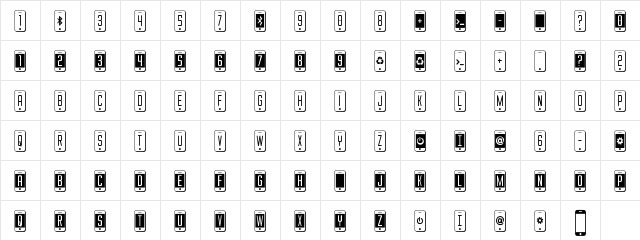
iDroid S Outline Font Preview
iDroid S Outline Outline
iDroid S Outline Font Details
Design Context for iDroid S Outline Typeface
iDroid S Outline brings ornamental detail and strong personality to headlines and identities, where visual impact matters more than quiet functionality.
Font Pairing: Pair with a clean neutral sans-serif for body copy to let iDroid S Outline's character lead without overwhelming the composition.
Pro Tip: Treat iDroid S Outline as the centrepiece of your typographic hierarchy. One strong heading set in a decorative face can carry an entire layout.